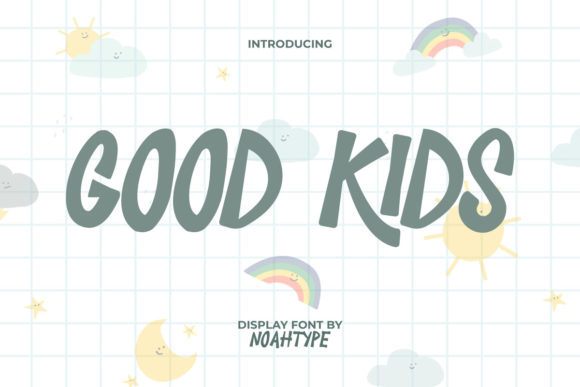
Discover the enchanting world of Good Kids Font, a whimsical display font that brings youthful flair to your designs. Crafted by NoahType, this font is a joyous symphony of playfulness and authenticity, perfect for igniting creativity and leaving a lasting impression.
With its captivating curves and dynamic strokes, Good Kids Font embodies the exuberance of childhood, making it an ideal choice for children's activities, school projects, and playful invitations. Let your imagination soar as you create enchanting designs that resonate with the innocence and wonder of youth.
Immerse yourself in a palette of boundless possibilities with Good Kids Font. Whether you're designing posters, flyers, or eye-catching social media graphics, this font is a versatile chameleon, adapting seamlessly to your creative vision. Its playful nature lends itself to fun and lighthearted projects, while its underlying sophistication adds a touch of elegance.
Elevate your designs to new heights with Good Kids Font. Let your words dance with joy, expressing the vibrant energy of childhood and the unbridled imagination that knows no bounds. Experience the magic of Good Kids Font and embark on a creative journey that will leave your audience captivated.